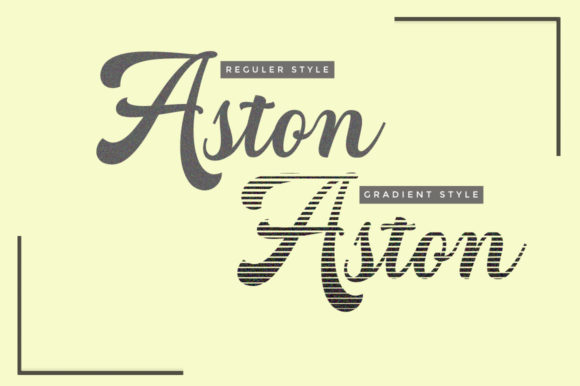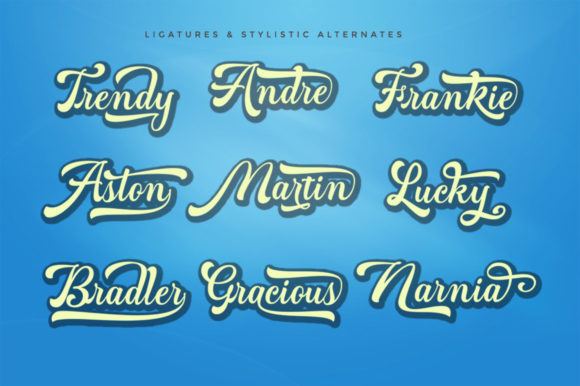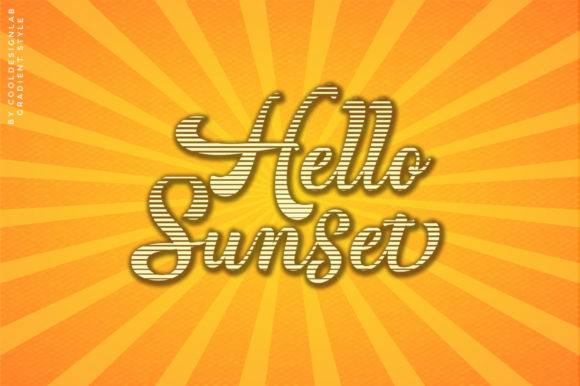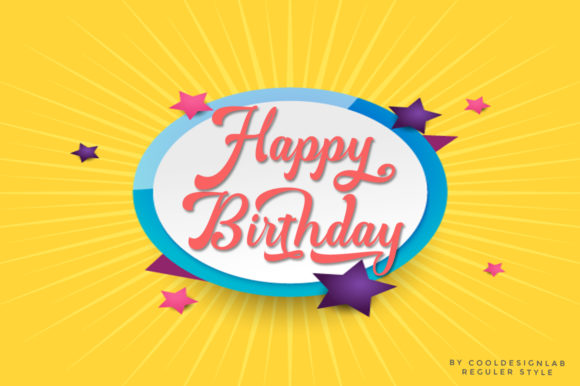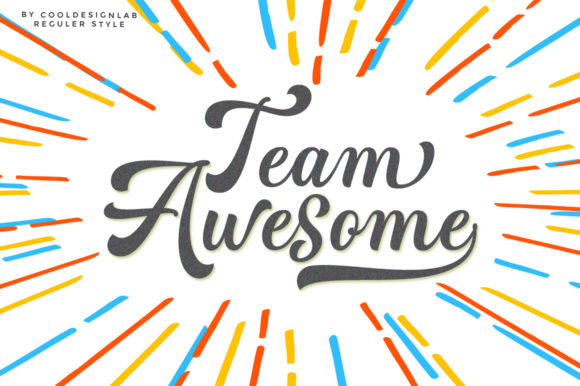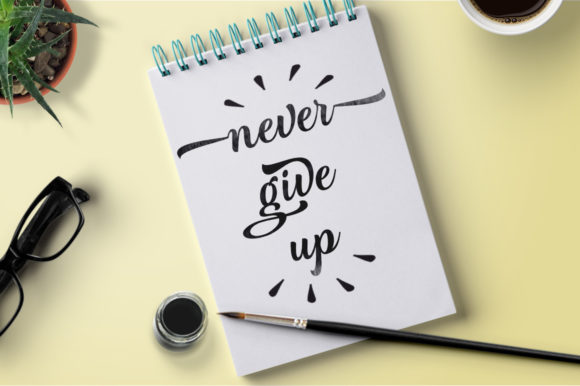
Introduction to Martine Script Font
The Martine is a bold and striking typeface.
It has a realistic and modern style, which makes this script perfect to use in your everyday designs .